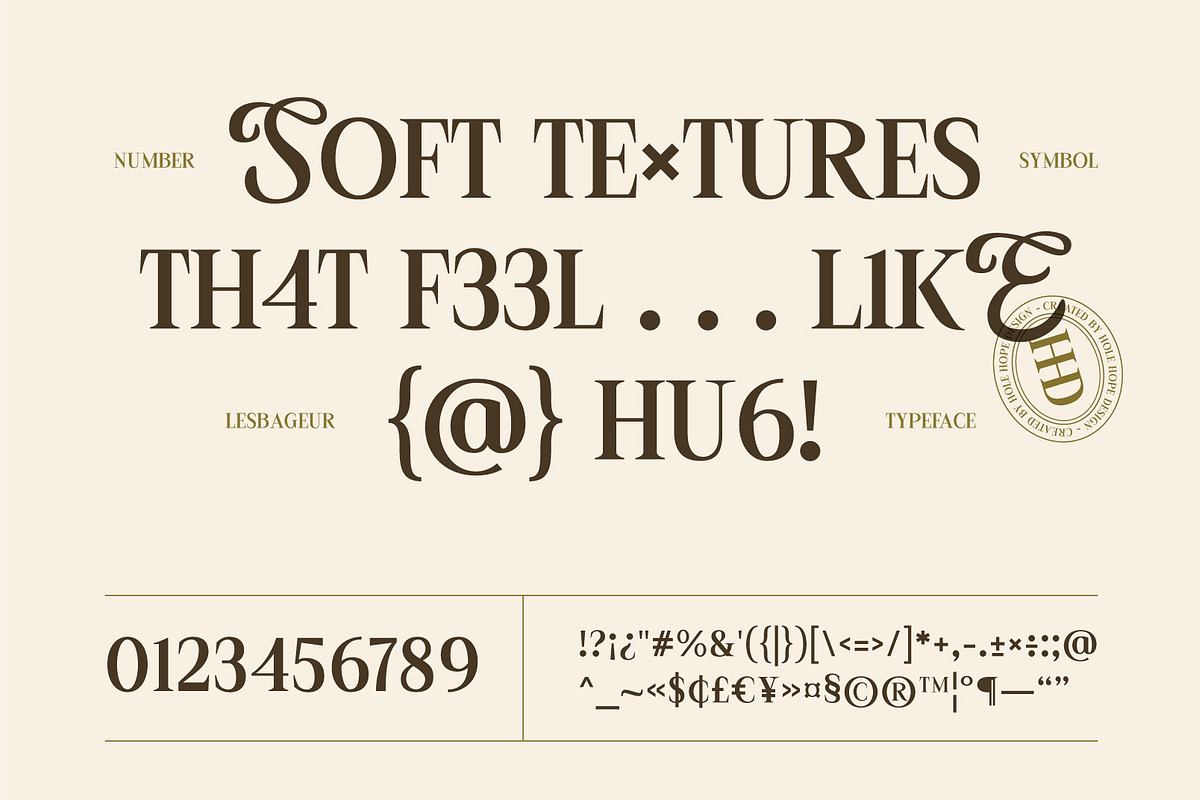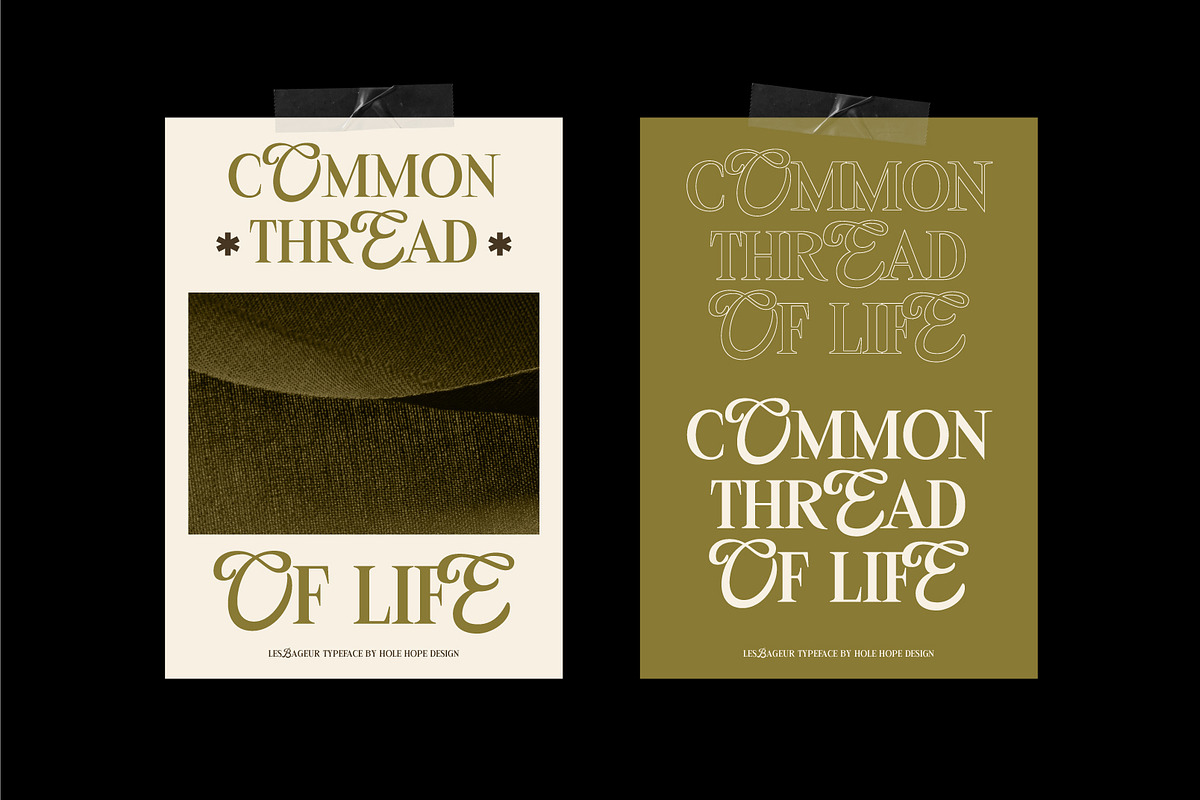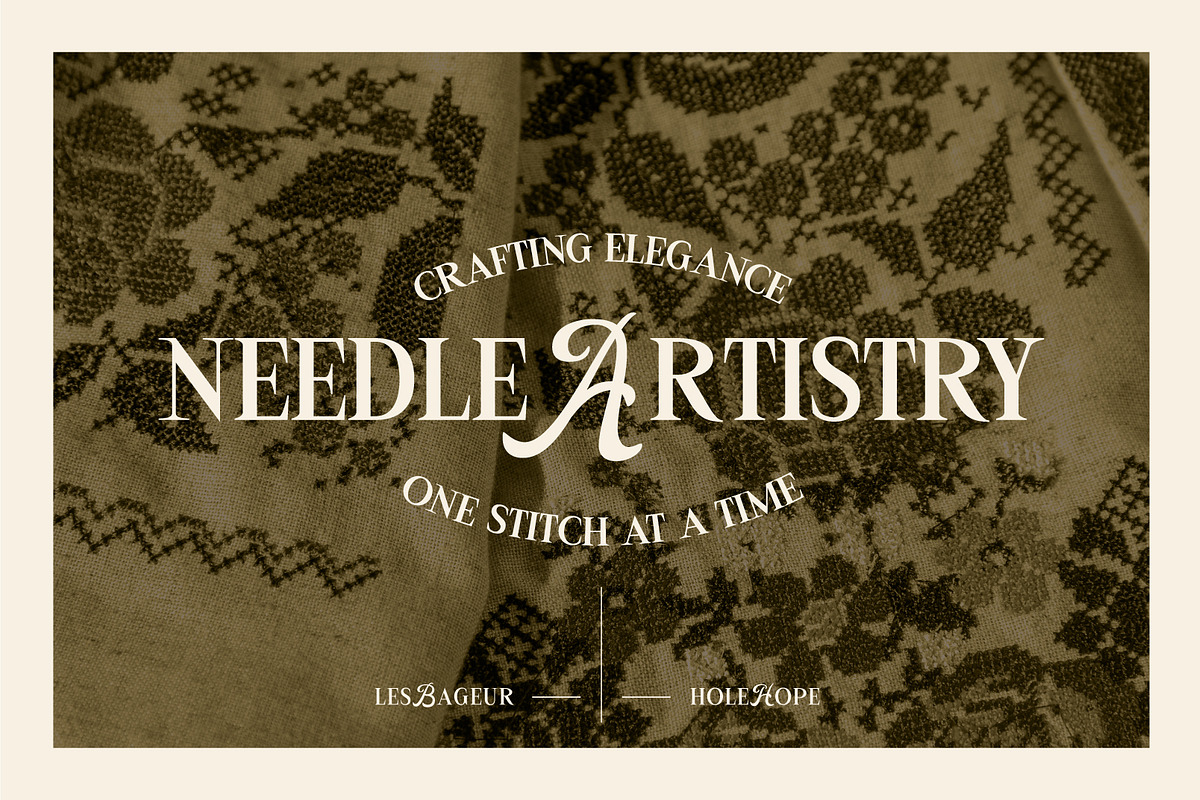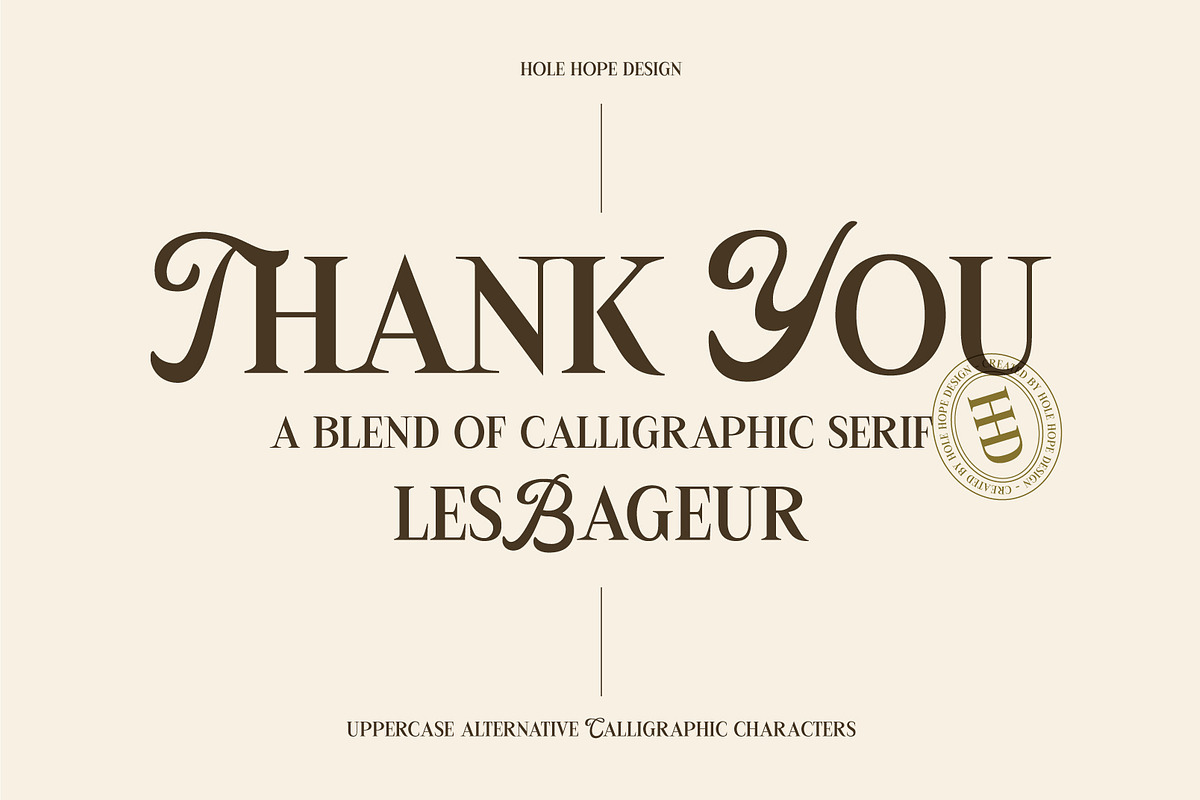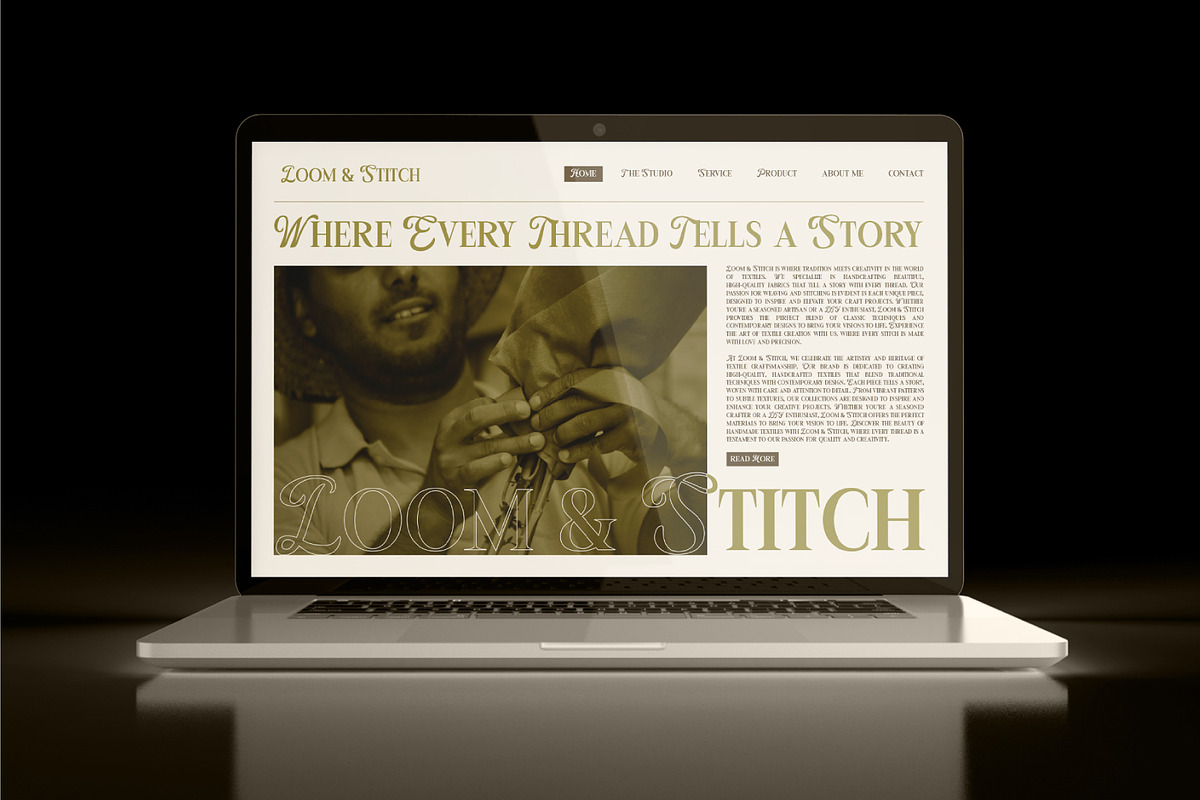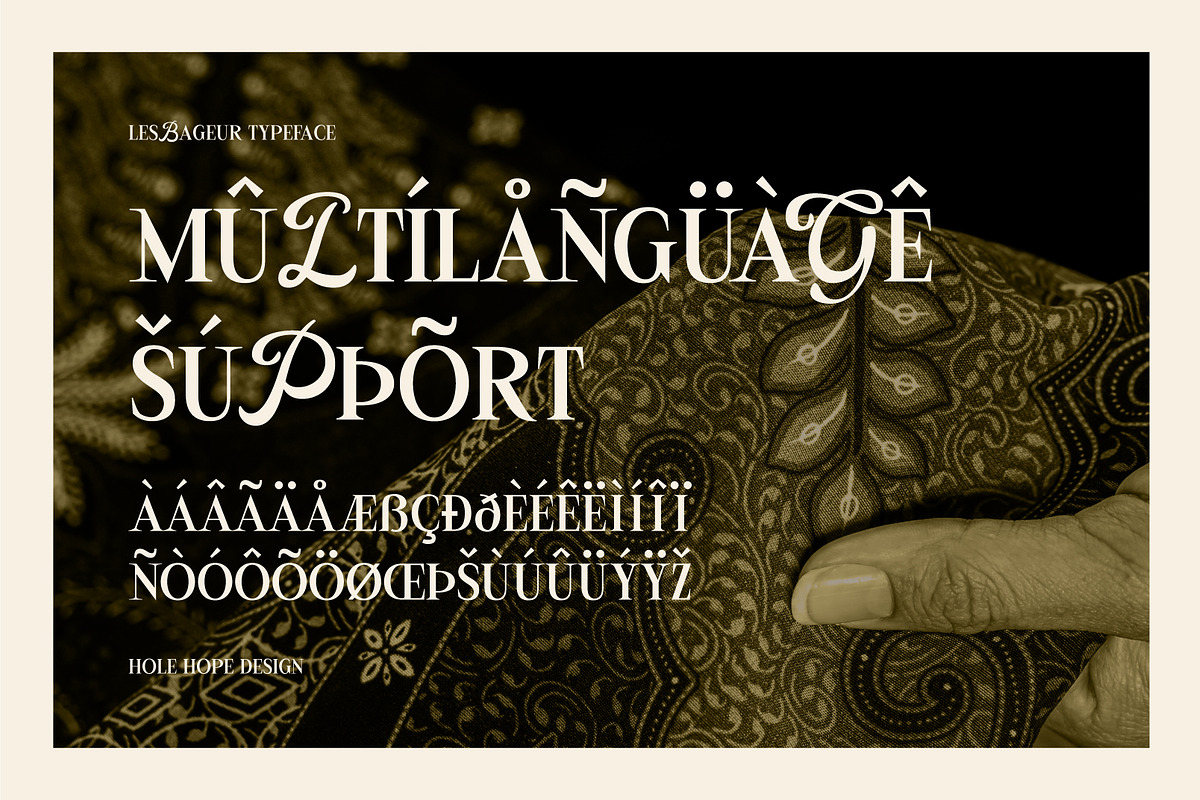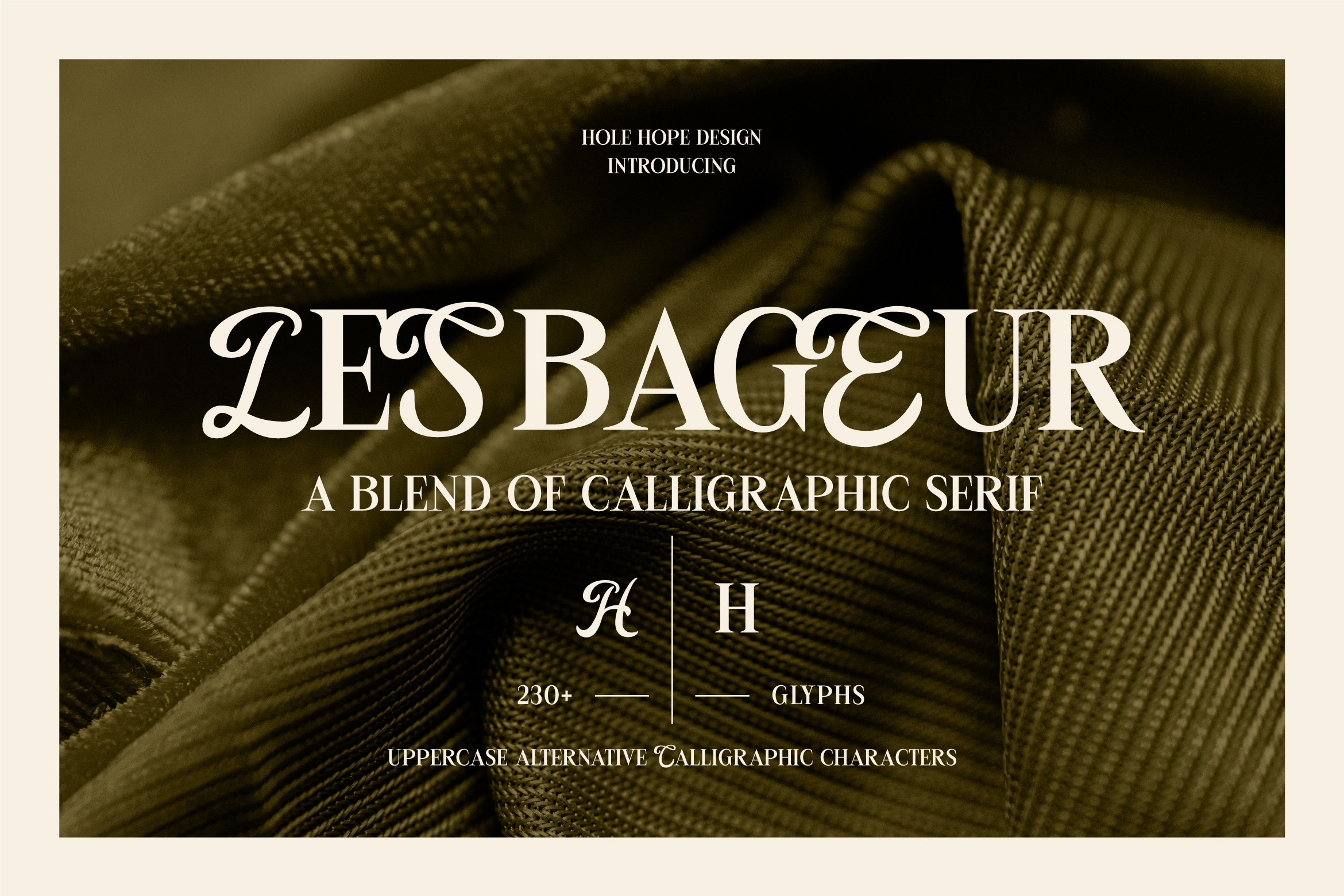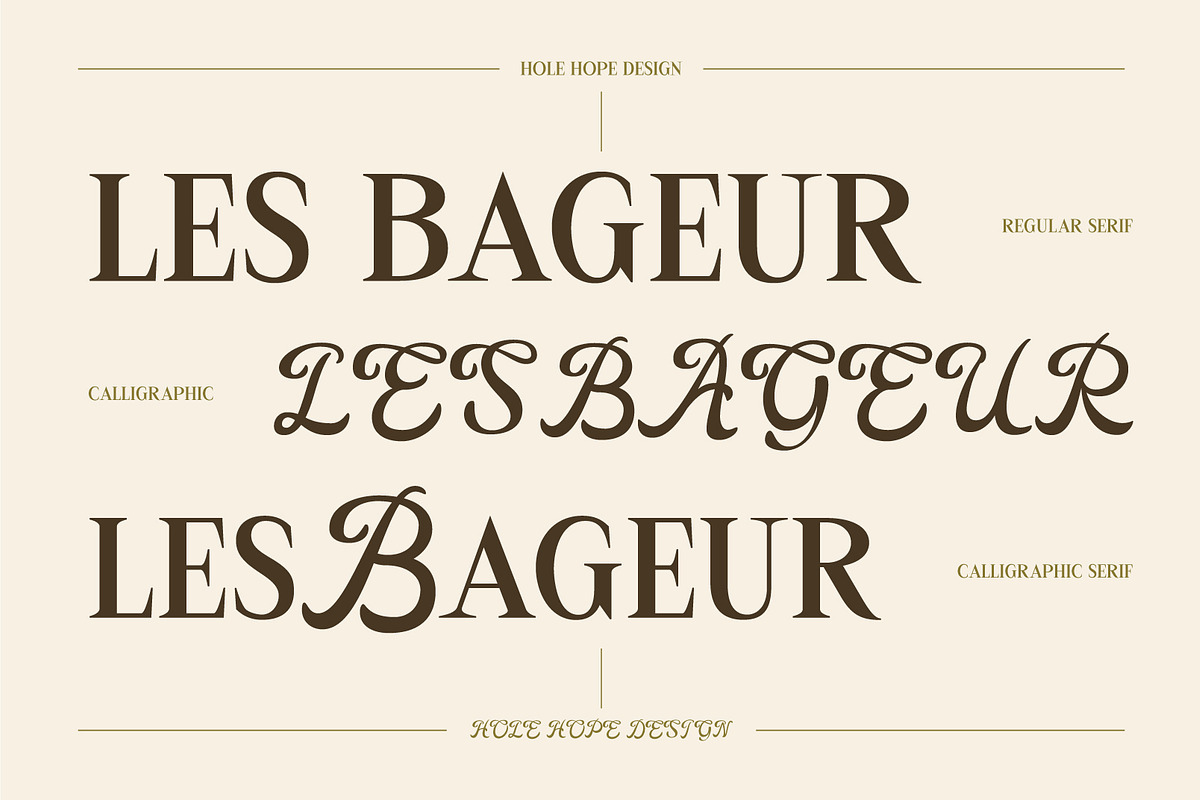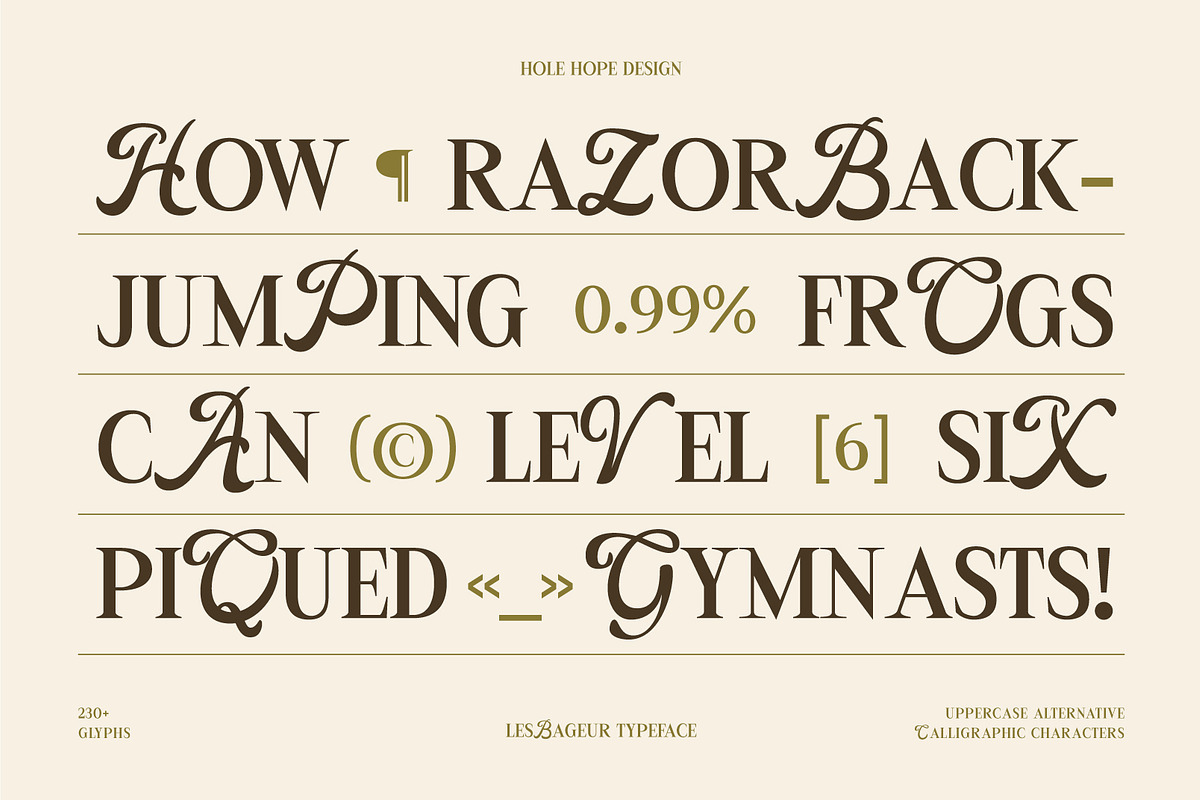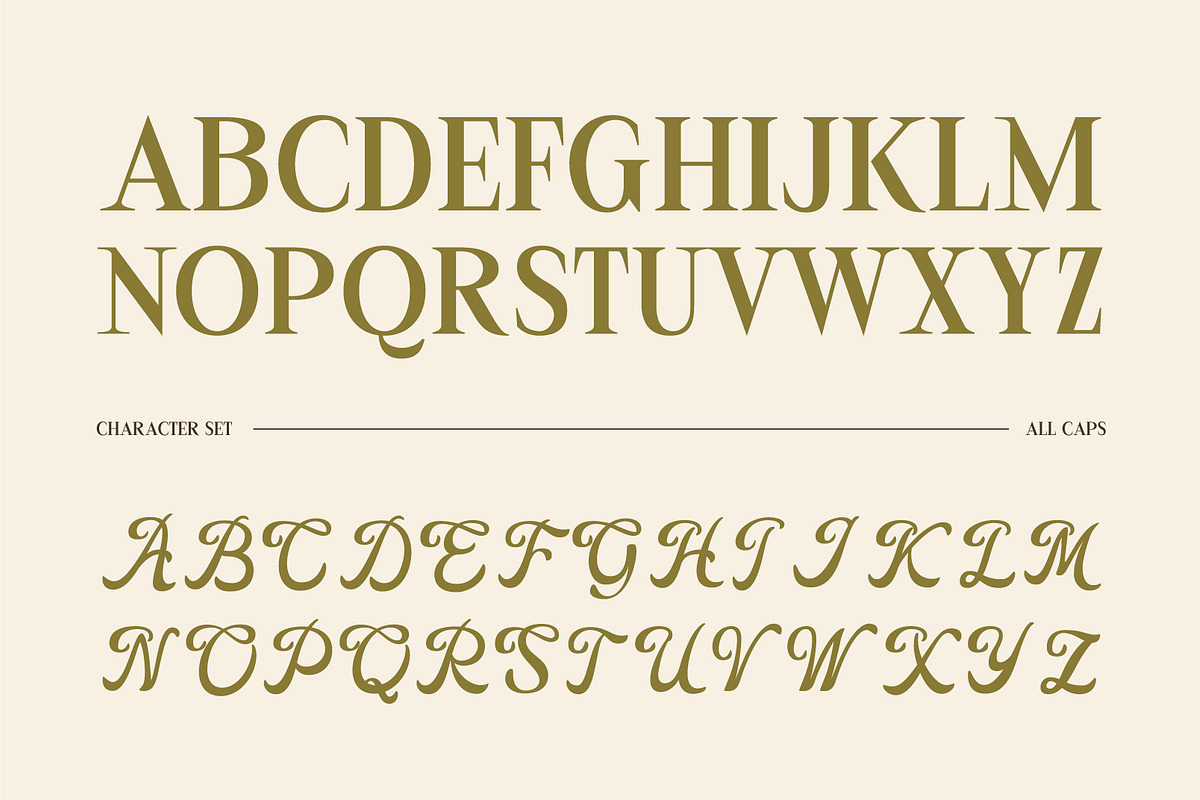
LesBageur | Calligraphic Serif Font
LesBageur is a timeless typeface that seamlessly blends vintage charm with minimalist elegance. Perfect for designers seeking a sophisticated yet understated aesthetic, LesBageur brings a touch of classic beauty to any project. It’s intricate serifs and fluid strokes evoke the grace of traditional calligraphy, while its clean lines and balanced proportions maintain a modern sensibility. Ideal for branding, editorial design, and luxurious invitations, LesBageur is your go-to font for creating stunning, memorable designs that stand the test of time. Embrace the allure of Vintage Minimalism with LesBageur, where tradition meets contemporary style.
- Character Set (All Caps)
- Stylistics Set 01 All Caps Calligraphic Script
Dive into the world of Vintage Minimalism and bring the magic to your design!